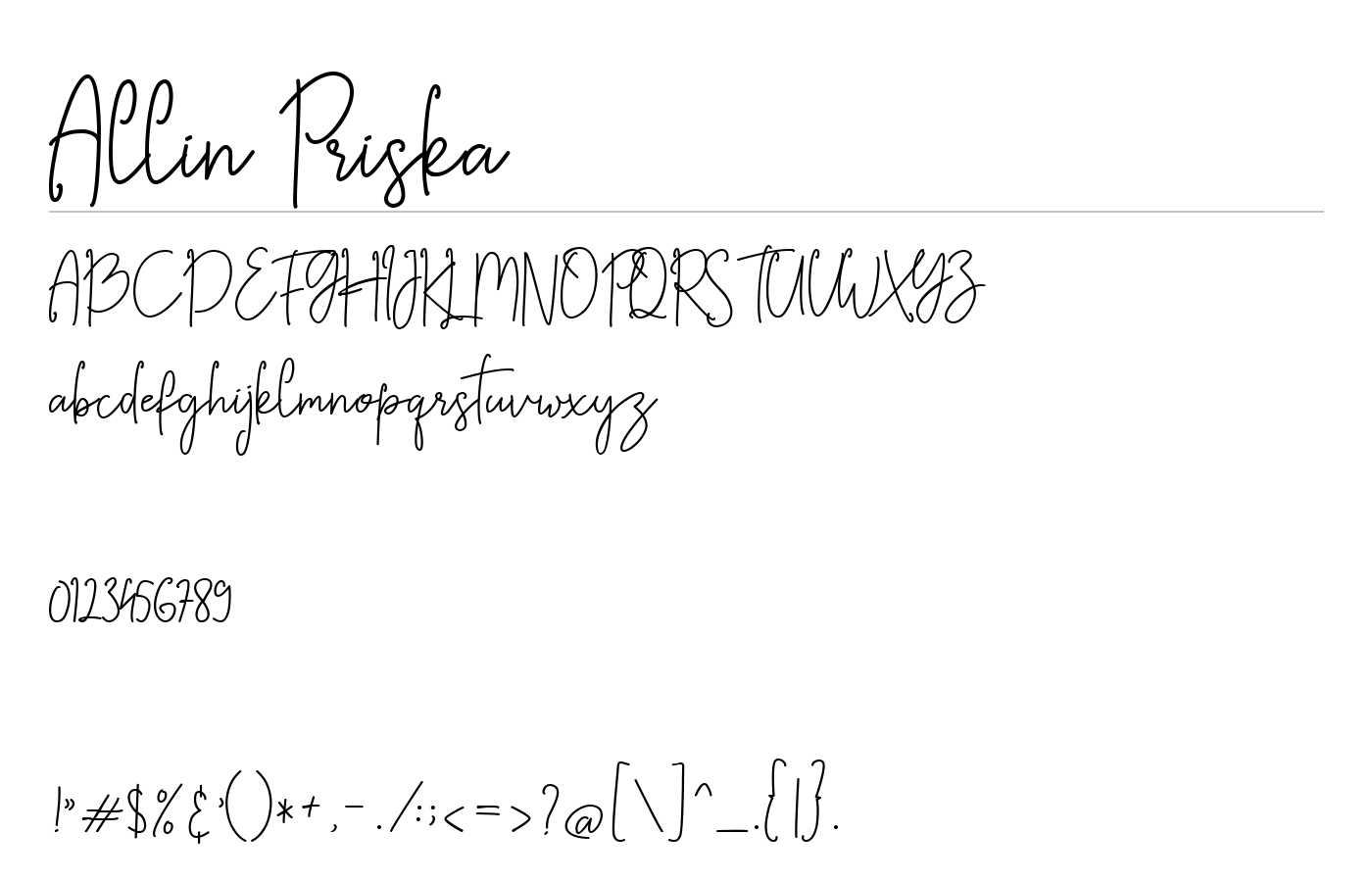
Allin Priska is a delicate, handwritten script font featuring tall, narrow letterforms with fine, flowing strokes that convey a personal and elegant touch. Its slender, airy style works beautifully for creative projects, invitations, and branding that seek to express sophistication with a casual, artistic flair. This font shines in uses that benefit from a friendly yet refined handwriting feel, lending charm and individuality to headlines, logos, or greeting cards.
Allin Priska Font
About Allin Priska Font
| Font family | Allin Priska Font |
| Designer | Nabila Graphic Team |